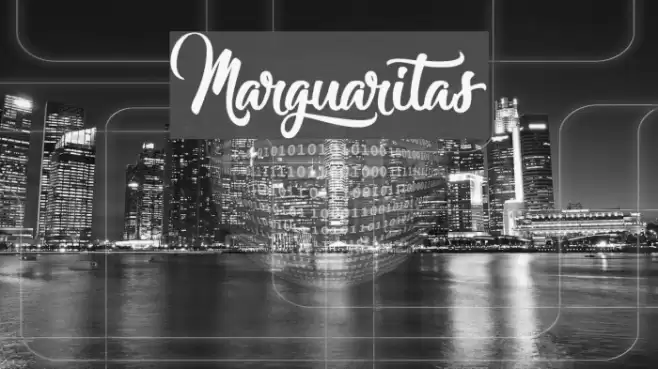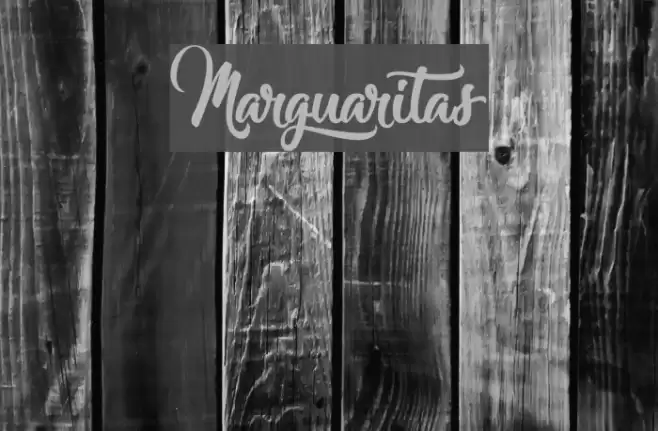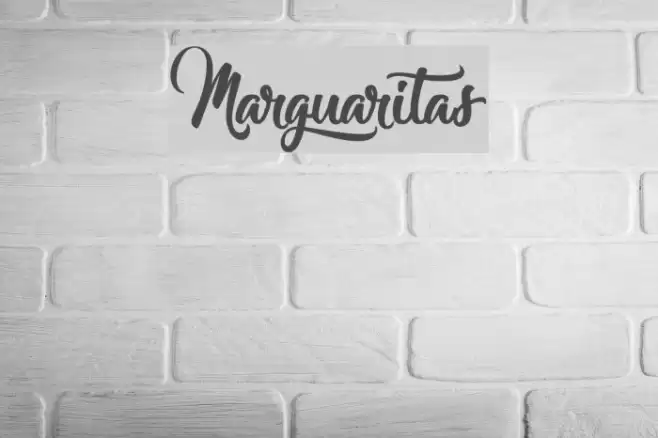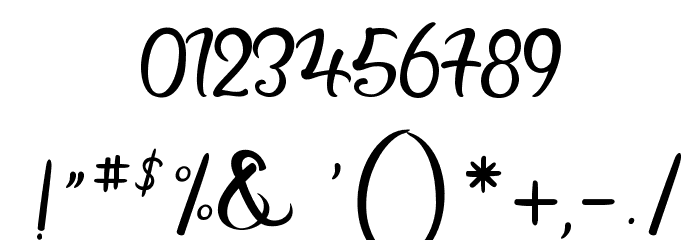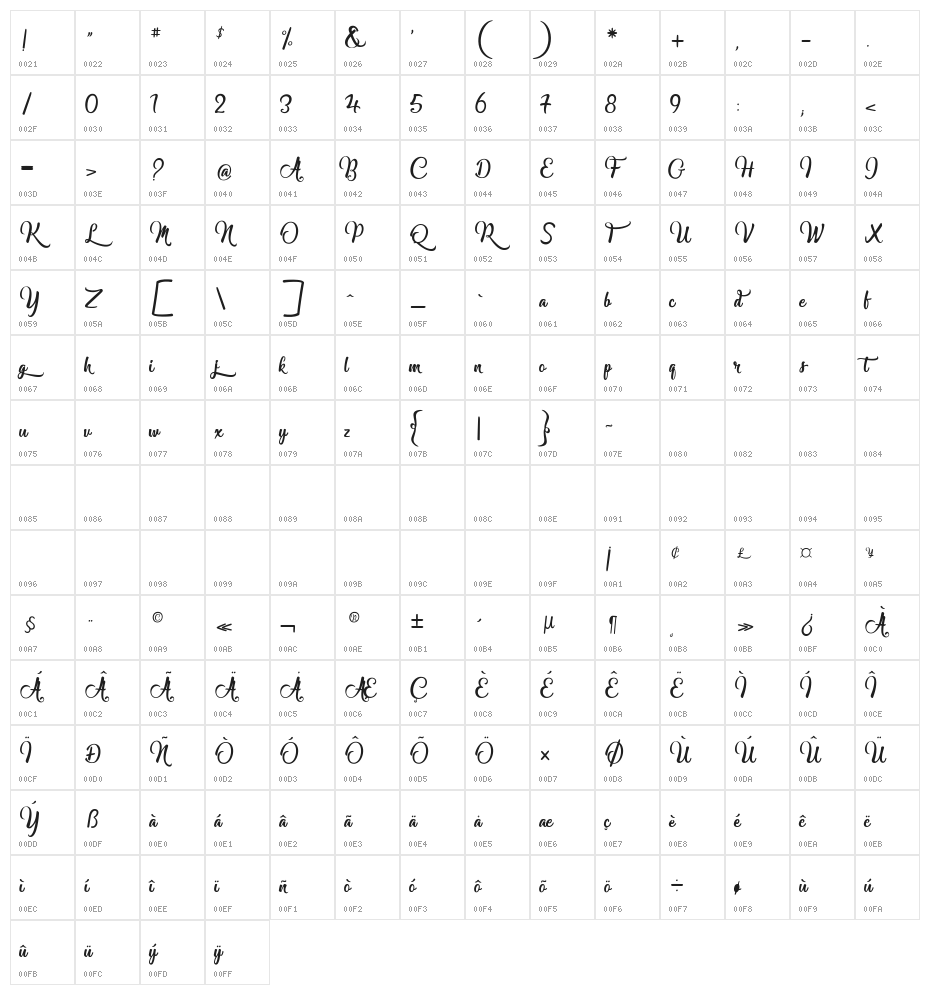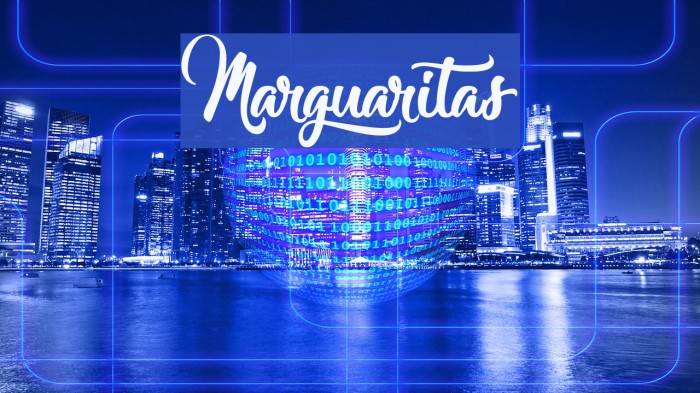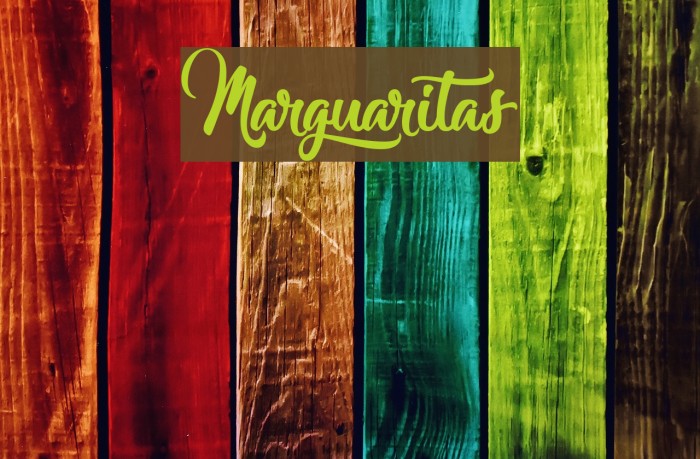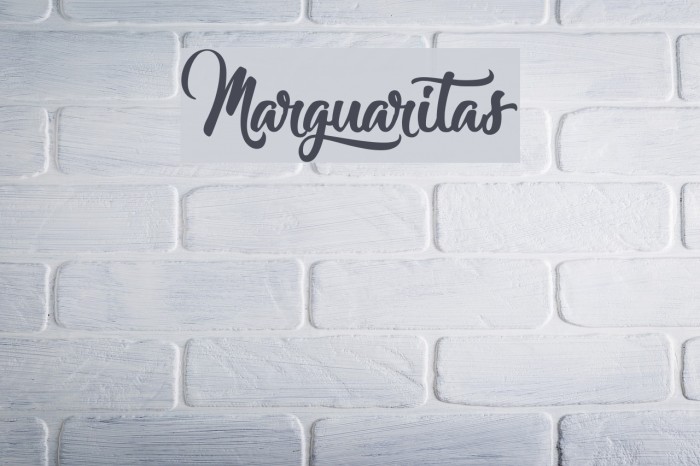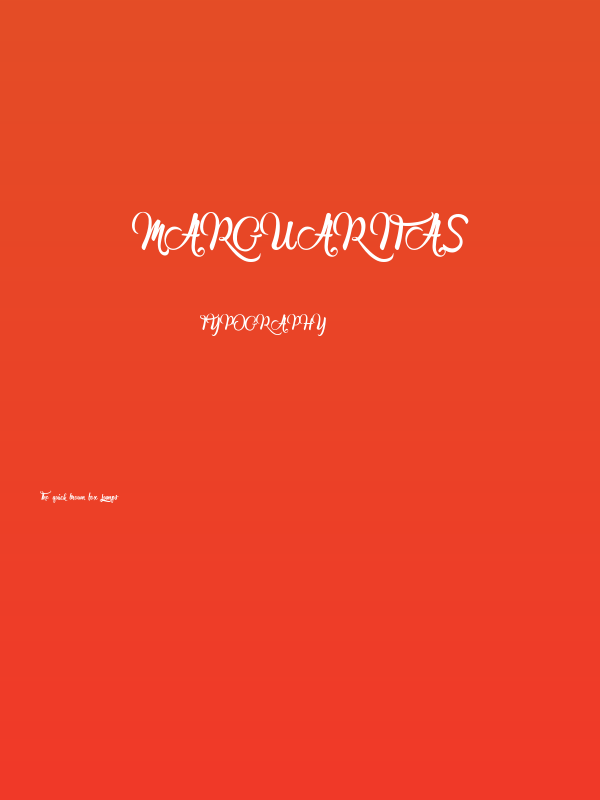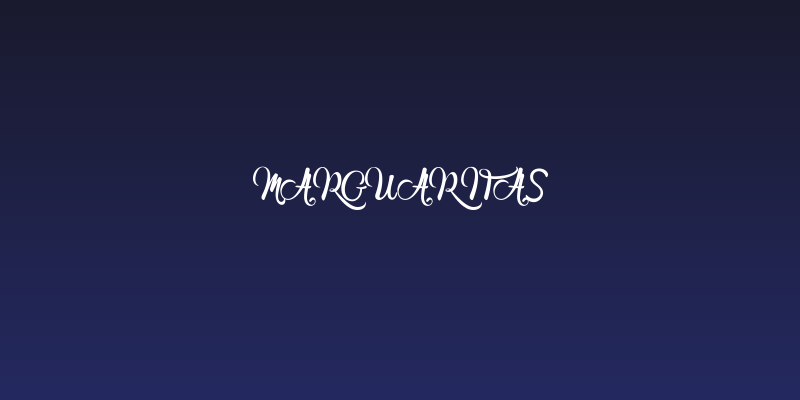
Marguaritas Font
Marguaritas Description
This font exudes a lively and elegant script style, characterized by its flowing, cursive letters that mimic the fluidity of handwritten calligraphy. The uppercase letters are adorned with intricate swashes and flourishes, adding a touch of sophistication and flair. The lowercase letters maintain a consistent slant, enhancing the overall graceful appearance. The numerals and special characters are designed to complement the alphabet, maintaining the same elegant curves and strokes. This font is perfect for projects that require a personal, artistic touch, such as invitations, greeting cards, or branding materials.
A lively and elegant script font with flowing, cursive letters and intricate swashes from Calligraphic fonts.
- Proposed Projects: Ideal for wedding invitations, greeting cards, branding, and artistic projects.
- Overall Style: Elegant, Artistic
- Use Case: Headlines, Logos, Invitations